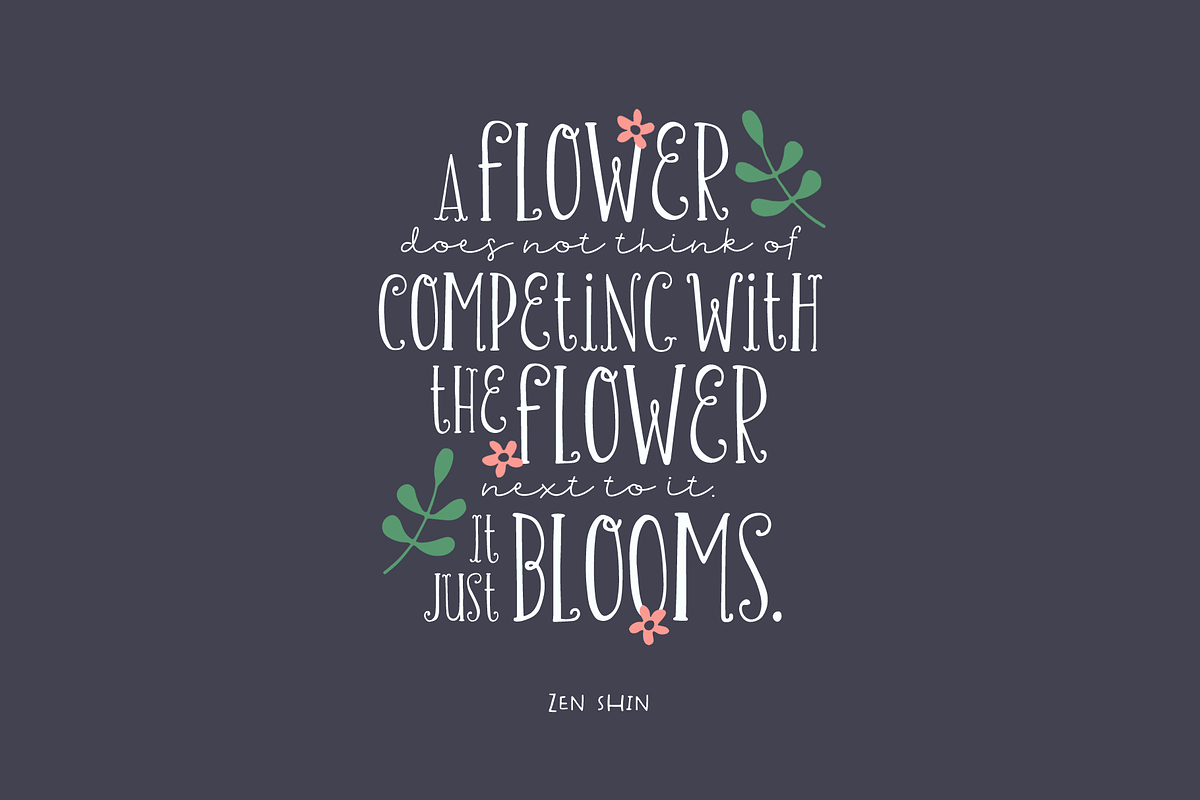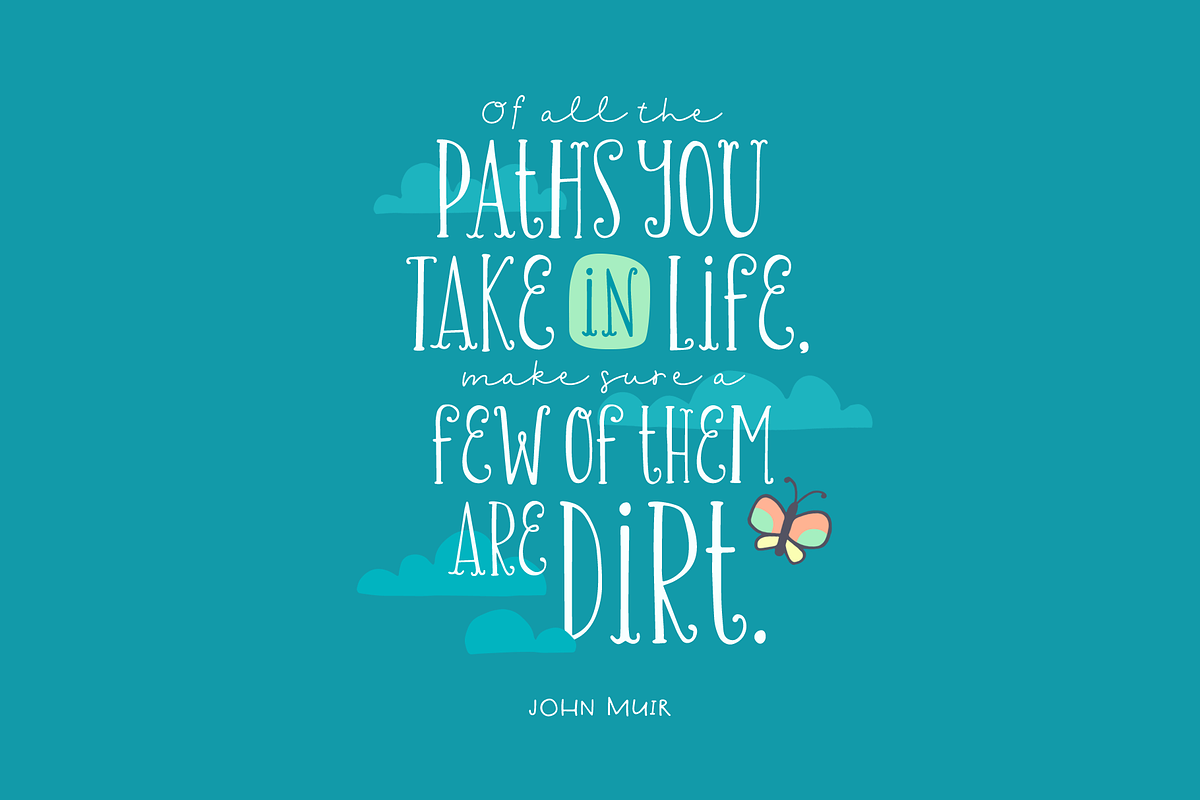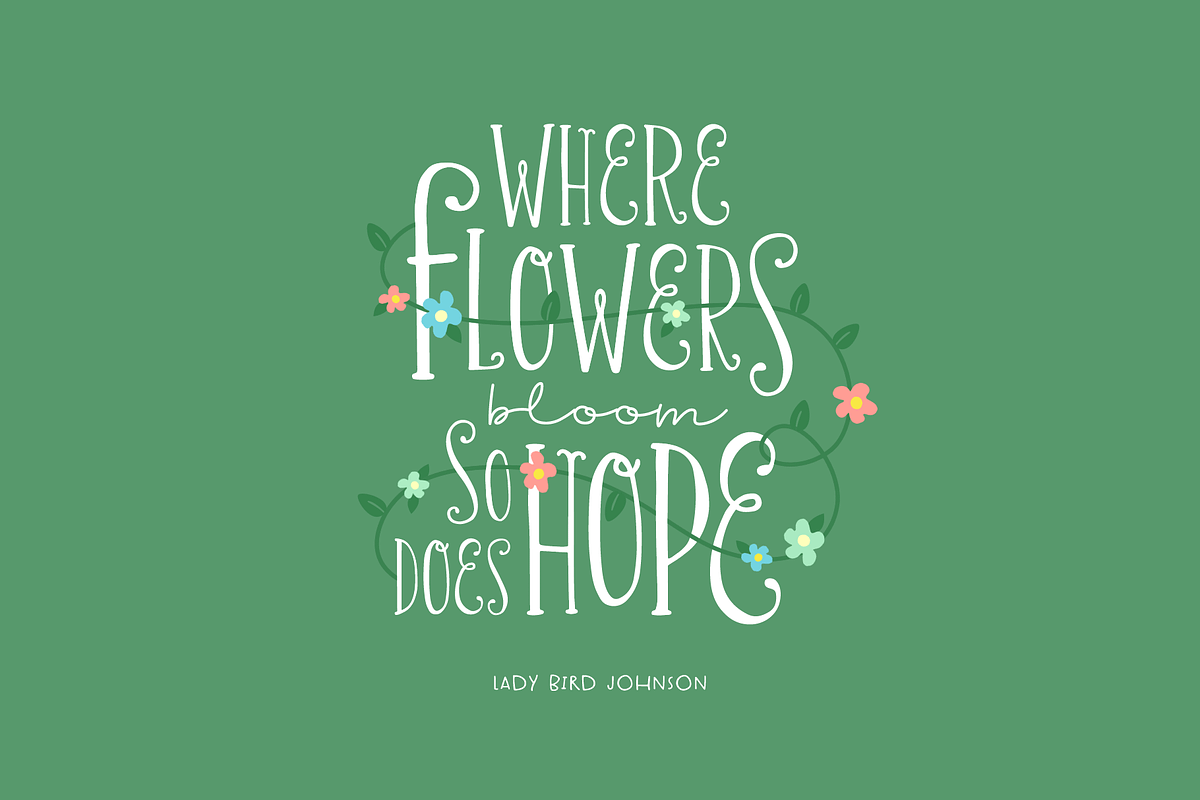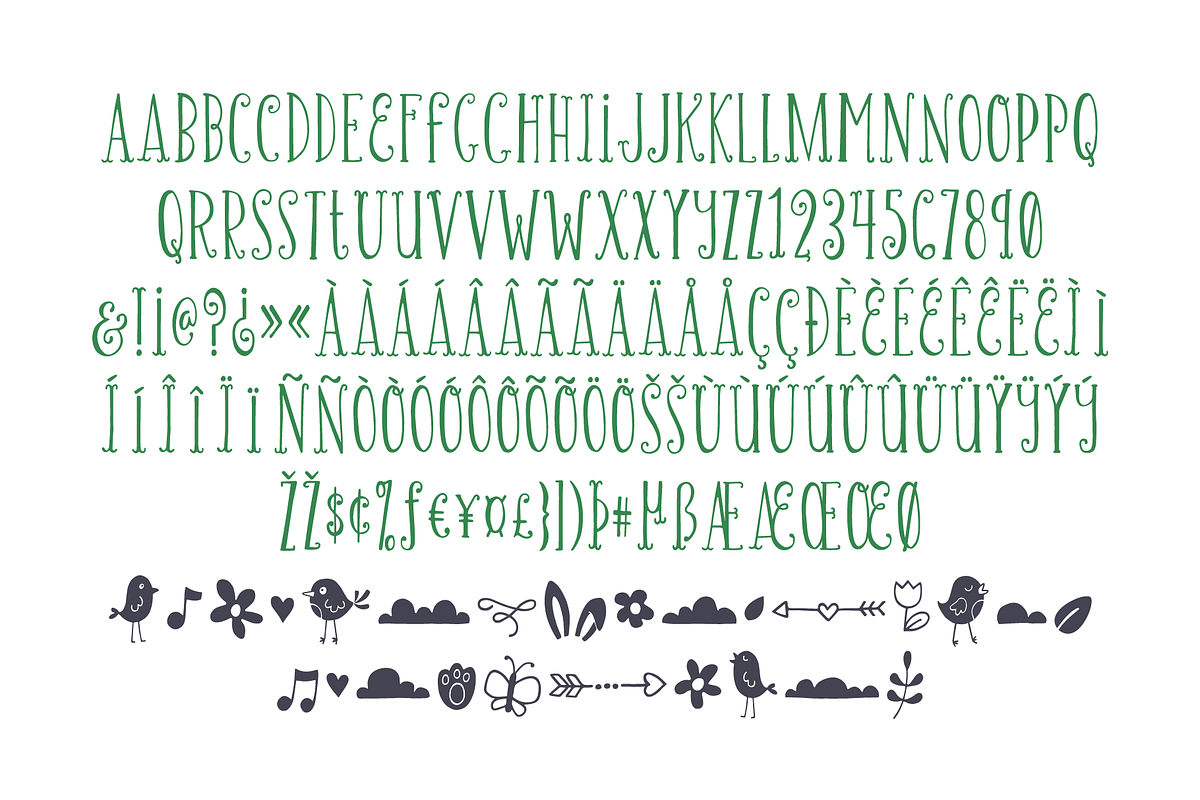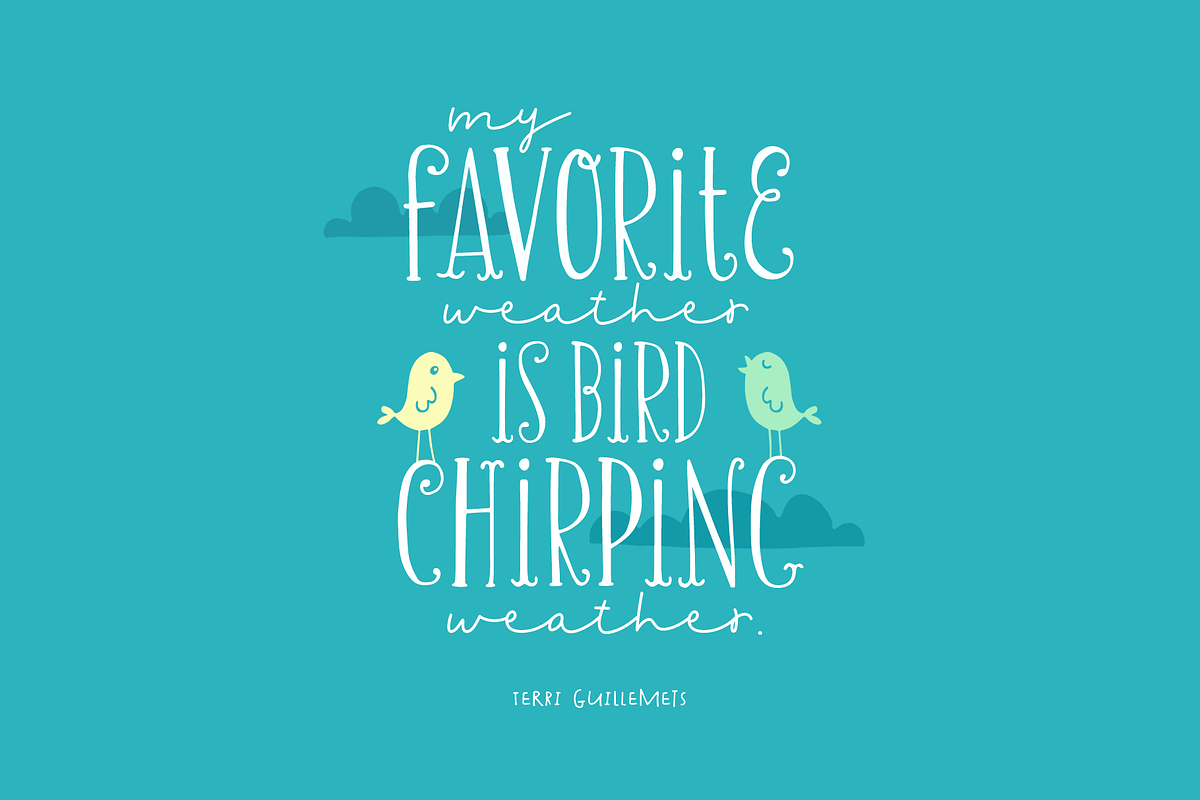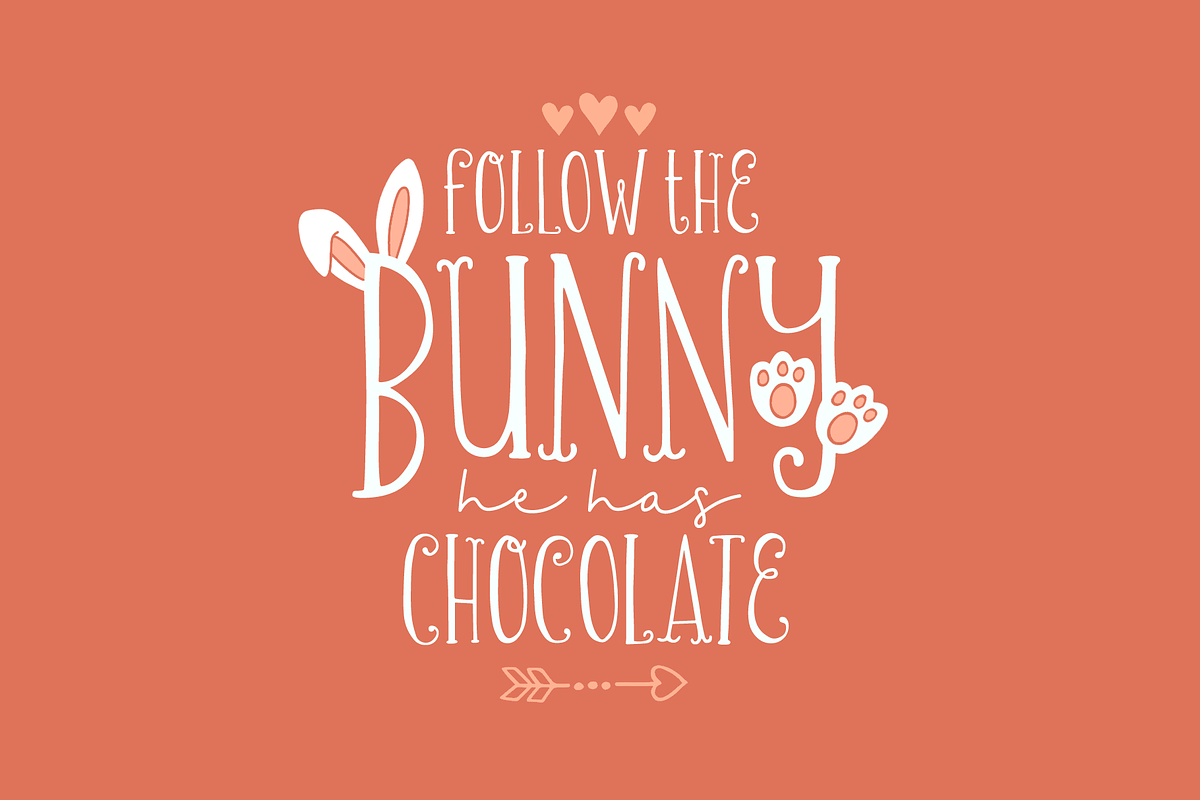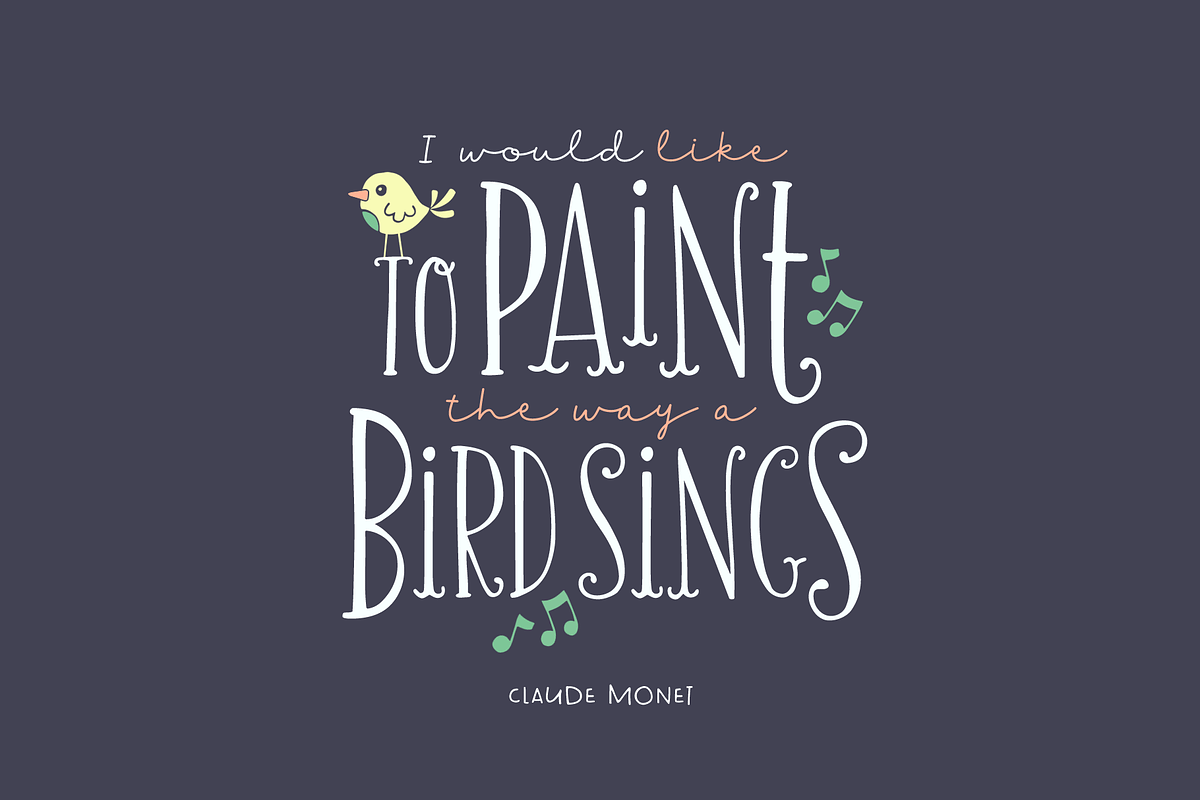
Chirp & Blossom Font
Chirp & Blossom is an adorable hand-drawn font that evokes feelings of springtime, sunshine, and happiness! It comes with a bonus set of nature-inspired doodles to bring your designs to life!
Chirp & Blossom Font by Denise Chandler fits naturally into Branding, posters, packaging, typography.